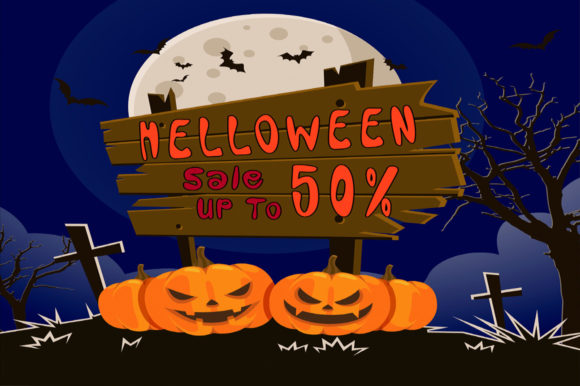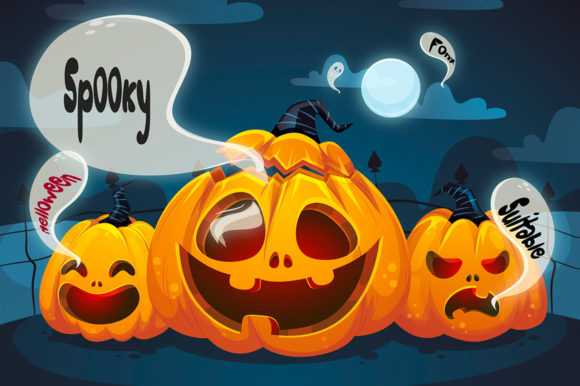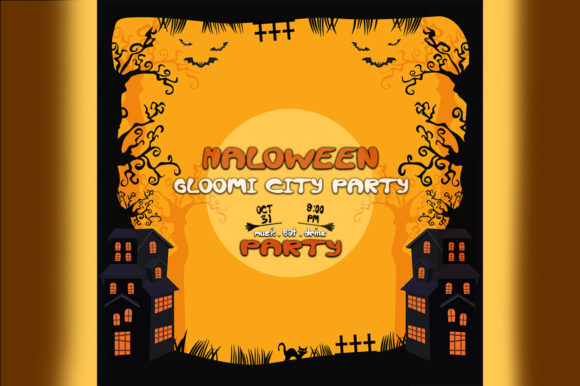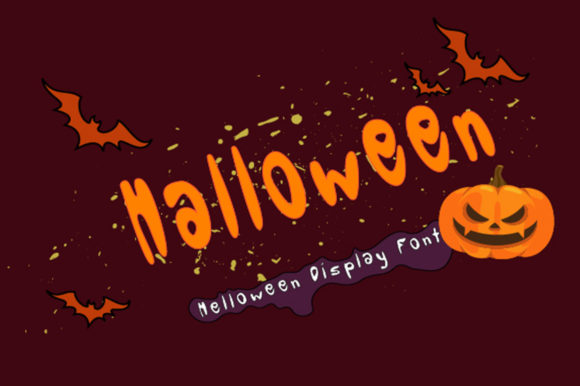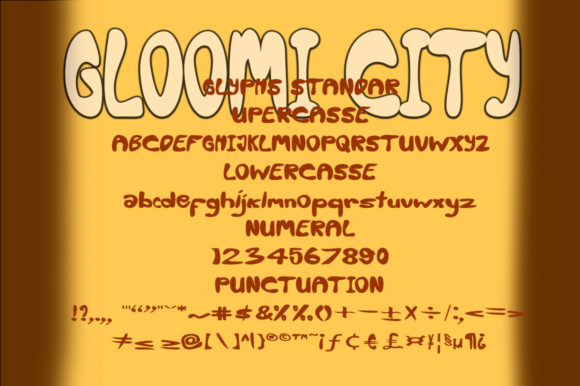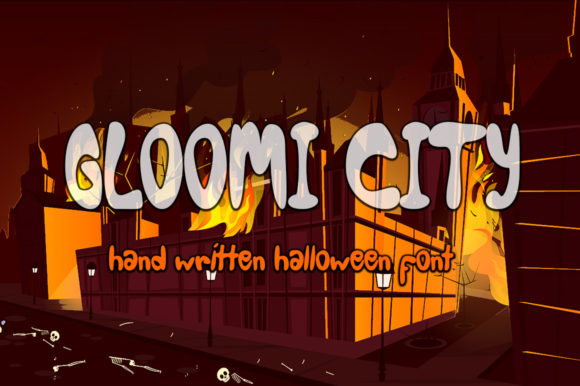
Gloomi City Font: The Perfect Choice for Creations with a Relaxed Touch
In the world of typography, fonts play a crucial role in conveying the tone and personality of a design. For designers and crafters looking for a font that exudes a fun and creepy vibe, Gloomi City Font is an excellent choice. This display font is designed to add a relaxed touch to various creations, making it a go-to option for those seeking an informal style.
What is Gloomi City Font?
Gloomi City Font is a unique and eye-catching display font that boasts a fun and creepy appearance. Its informal style and casual vibe make it perfect for designs that require a laid-back feel. The font’s distinctive look is characterized by its irregular shapes and bold lines, which give it a one-of-a-kind personality.
Key Features of Gloomi City Font
- Fun and Creepy Appearance: Gloomi City Font’s design is both fun and creepy, making it ideal for projects that require a unique and captivating look.
- Informal Style: The font’s informal style and casual vibe make it perfect for designs that need a relaxed touch.
- Display Font: Gloomi City Font is a display font, making it suitable for headlines, titles, and other prominent text elements.
- Easy to Read: Despite its unique design, Gloomi City Font is easy to read, making it a great choice for body text and other longer content.
Use Cases for Gloomi City Font
Gloomi City Font is a versatile font that can be used in various design projects, including:
- Posters and Flyers: The font’s bold and eye-catching design makes it perfect for posters and flyers that need to grab attention.
- Social Media Graphics: Gloomi City Font’s fun and creepy appearance makes it ideal for social media graphics, such as Facebook posts, Instagram stories, and Twitter headers.
- Logos and Branding: The font’s unique design makes it a great choice for logos and branding projects that require a distinctive look.
- Crafting and DIY Projects: Gloomi City Font is also perfect for crafting and DIY projects, such as handmade cards, scrapbooking, and other paper crafts.
Why Choose Gloomi City Font?
There are several reasons why designers and crafters should choose Gloomi City Font for their projects:
- Unique Design: The font’s unique design sets it apart from other fonts, making it a great choice for projects that require a distinctive look.
- Versatile: The font’s versatility makes it suitable for various design projects, from posters and flyers to logos and branding.
In conclusion, Gloomi City Font is a fun and creepy display font that is perfect for designs that require a relaxed touch. Its informal style and casual vibe make it a great choice for various design projects, from posters and flyers to logos and branding. With its unique design, ease of use, and versatility, Gloomi City Font is an excellent addition to any designer’s or crafter’s font collection.
Whether you’re a designer or crafter looking for a font that exudes a fun and creepy vibe, Gloomi City Font is definitely worth considering. So why not give it a try and see how it can elevate your designs to the next level?